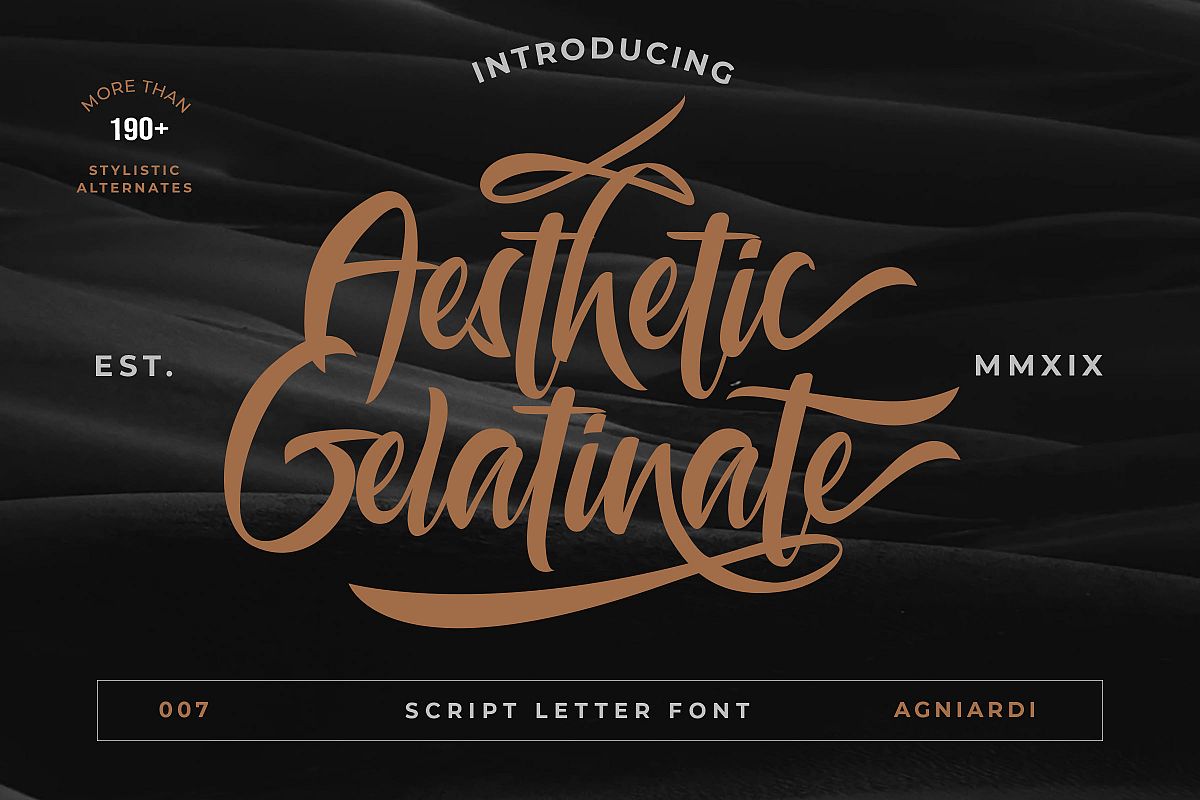
Aesthetic Gelatinate
Introducing : Aesthetic Gelatinate is a script letter font with a dynamic and energetic style. It can used for various purposes such as titles, signatures, logotypes, t-shirt designs, letterheads, signage’s, labels, newsletters, posters, badges, and every other design which needs an unique, striking font.